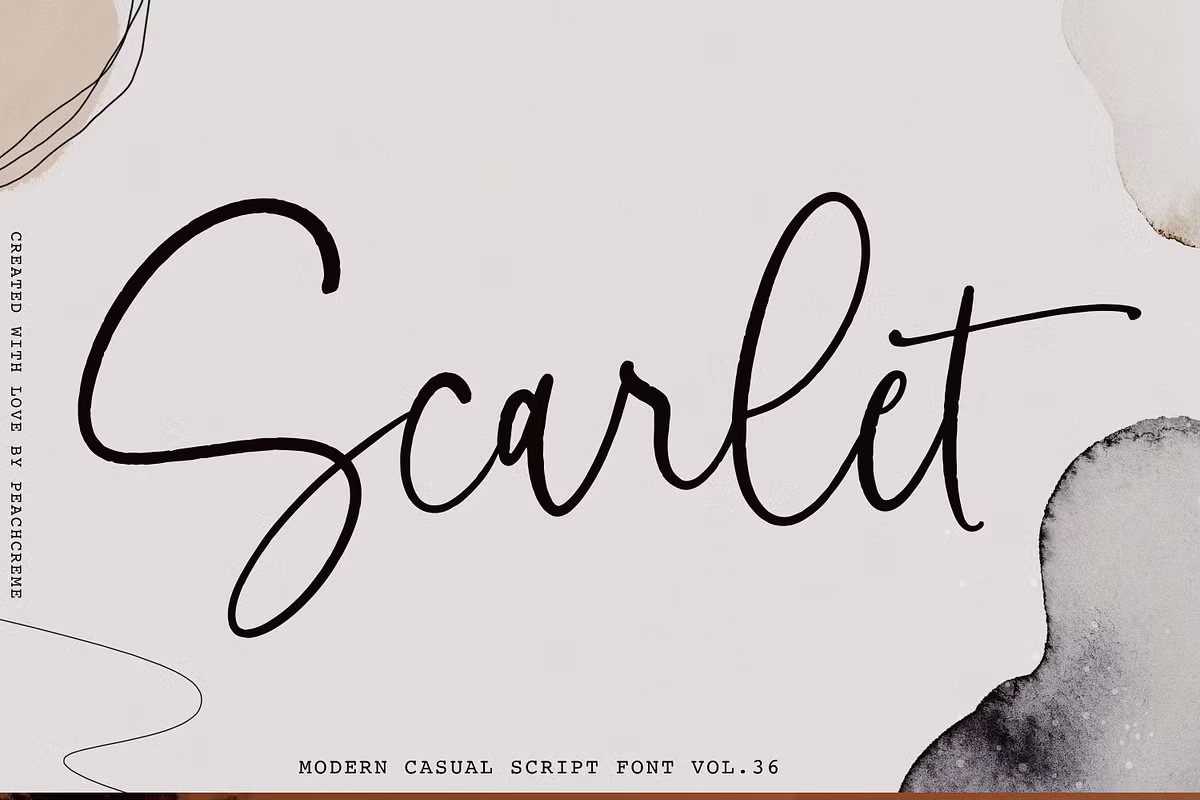
Scarlet // Modern Casual Font Free Download is a chic and effortlessly stylish typeface that blends the relaxed feel of handwriting with the clarity of a modern script. With its smooth flow, natural curves, and minimalist elegance, Scarlet is perfect for branding, social media content, product packaging, logos, lifestyle blogs, and wedding invitations.
Designed to strike a balance between playful and professional, Scarlet Free Download includes ligatures and alternates for a more customized, hand-lettered look. It’s great for both print and digital projects that call for warmth, personality, and a touch of sophistication.